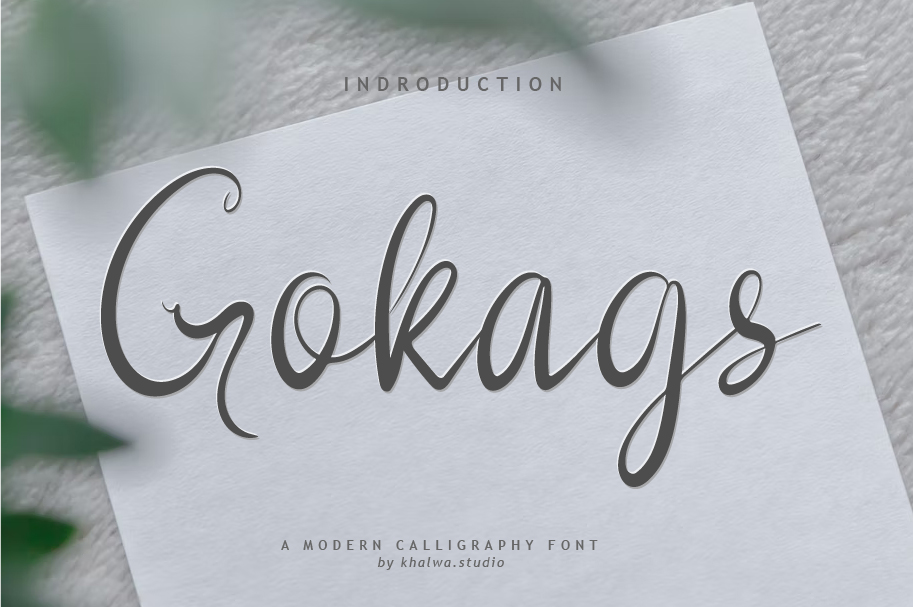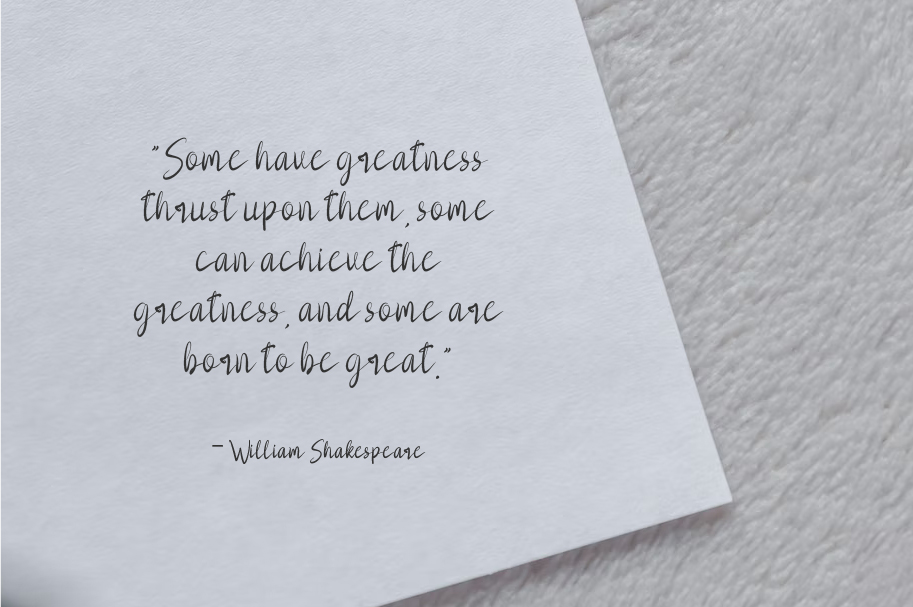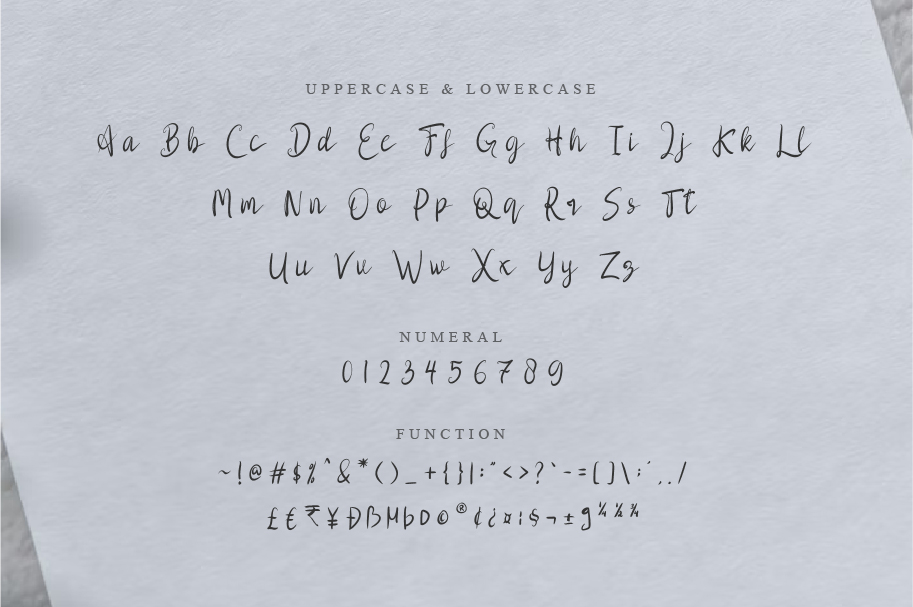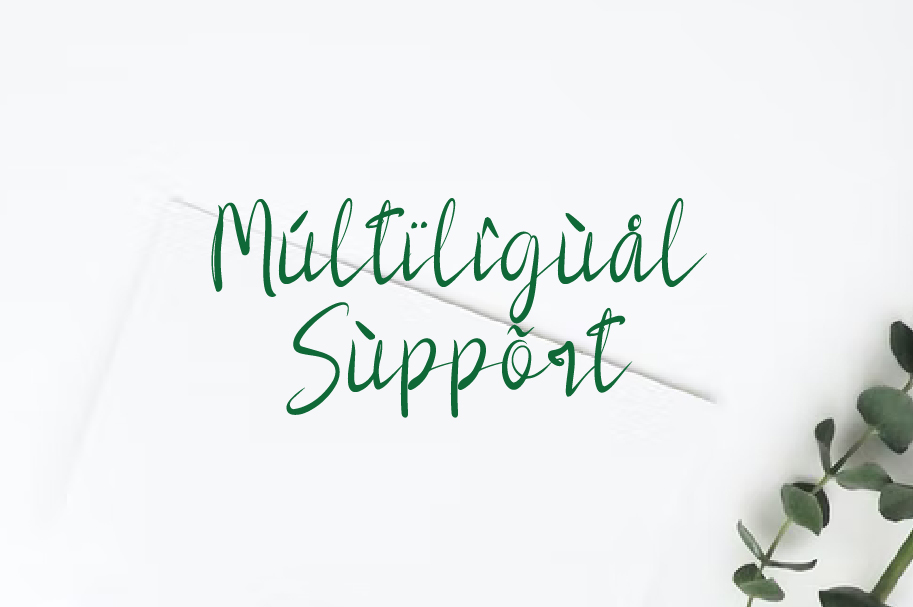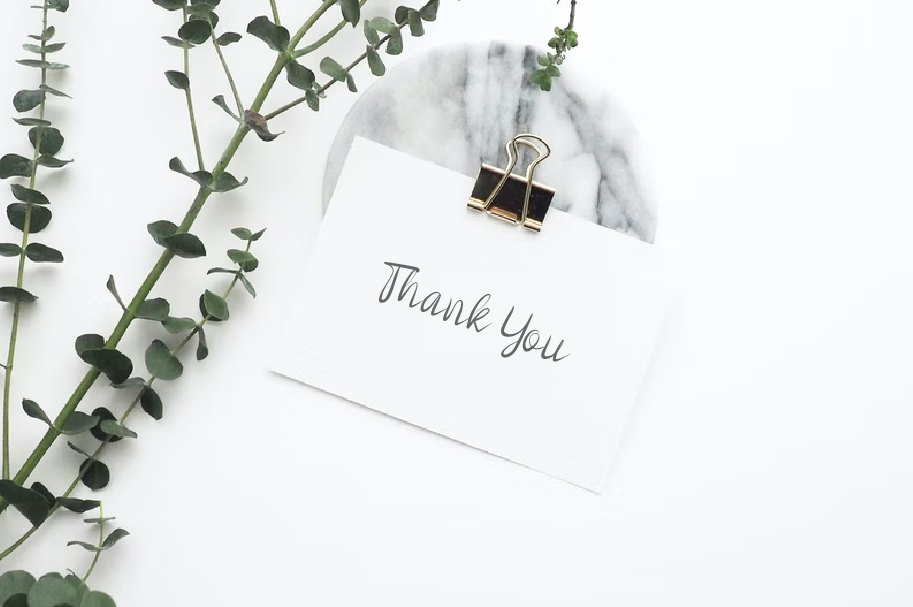
Gokags Font
Gokags Script Font
This is a lovely and timeless handwritten font. It is the best choice for creating eye catching logos, branding and quotes. Every letter has a unique and beautiful touch, which will make your design come alive!